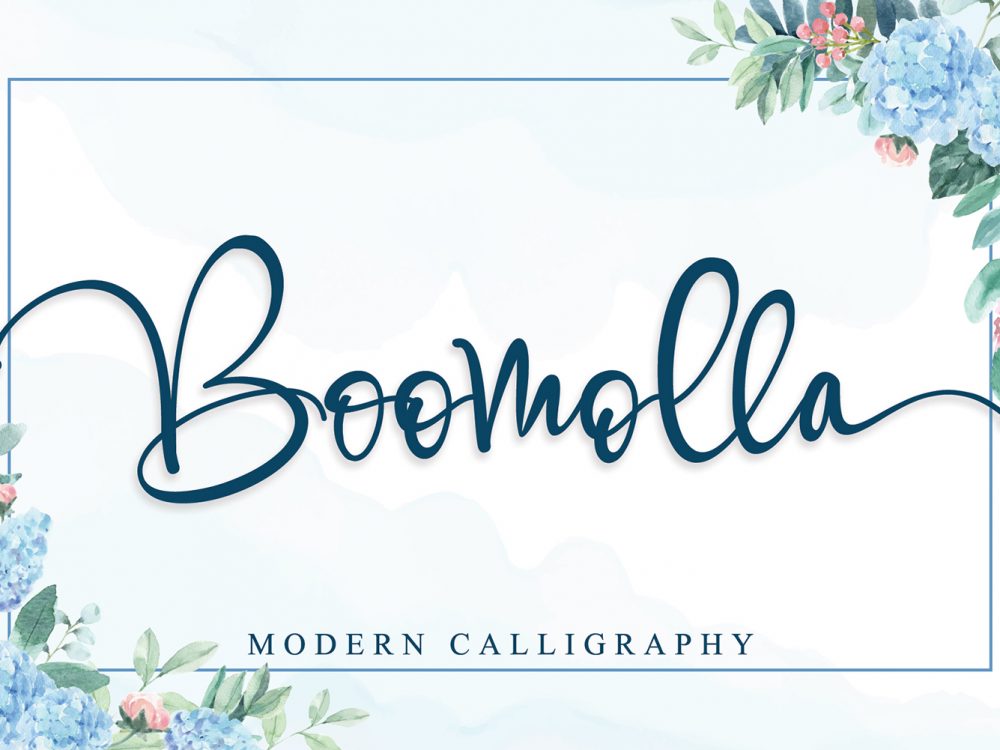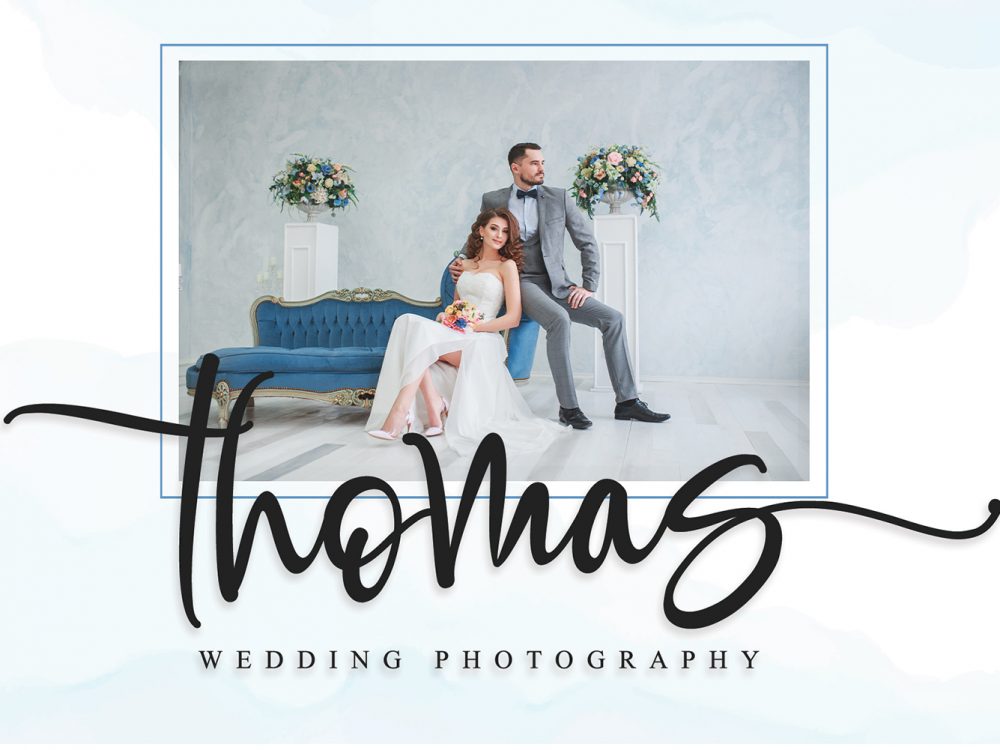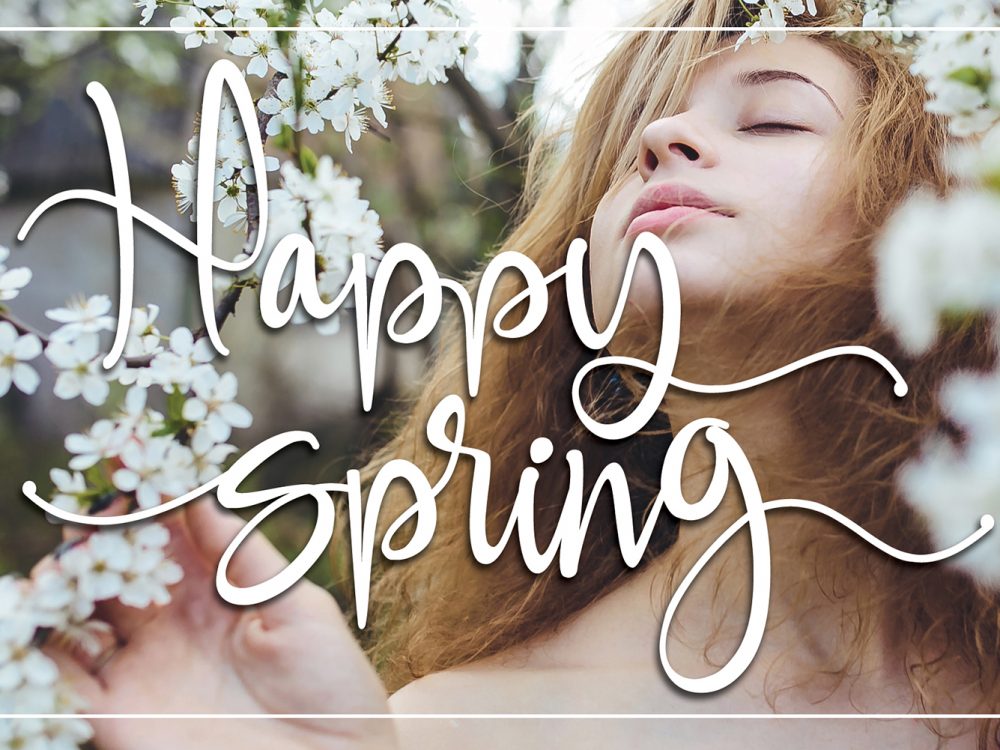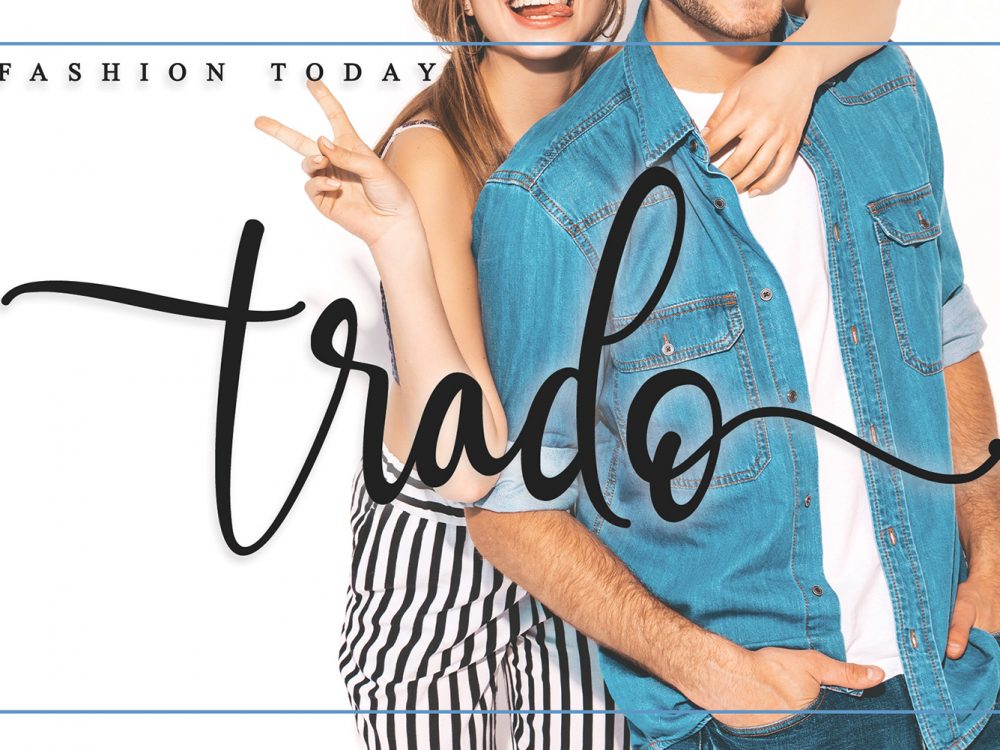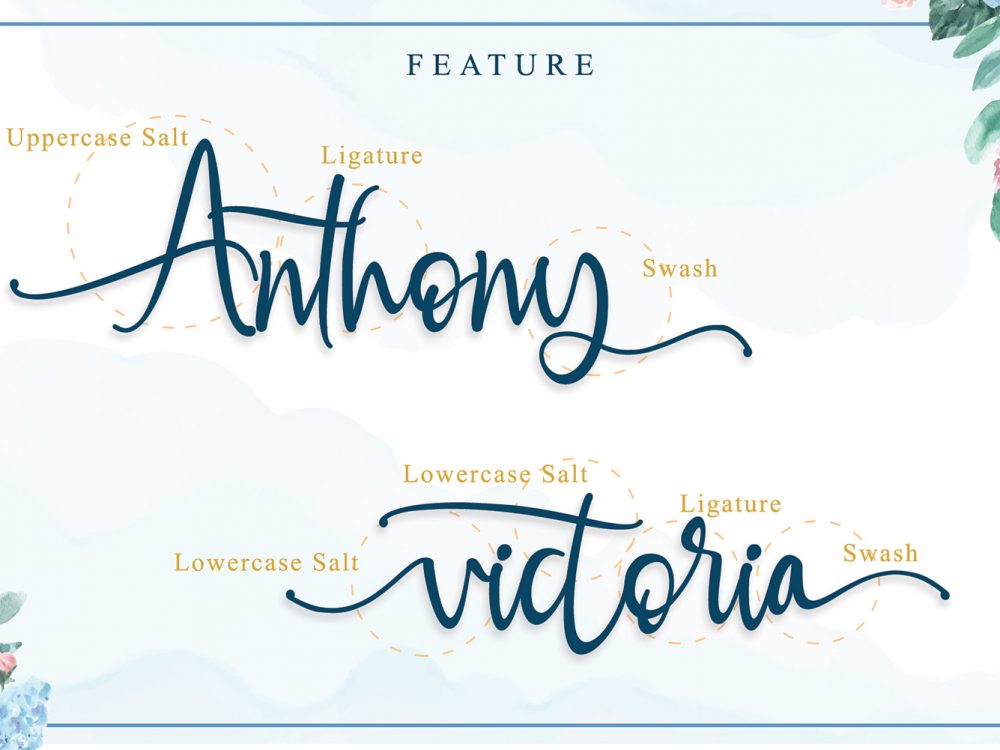
Boomolla Free Font
Boomolla Free Font is an interesting, modern, fresh font that has an elegant style and is very suitable for creating various projects that require a scripted font. You can use this font to create memorable posters, wedding invitations, greeting cards, branding, flyers, t-shirt and pillow prints, and more. Improve the quality and increase the popularity of your design projects by using this font. If you like it don’t forget to check out the full version.